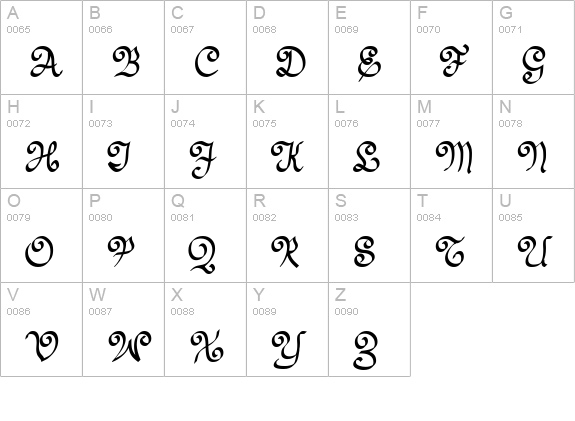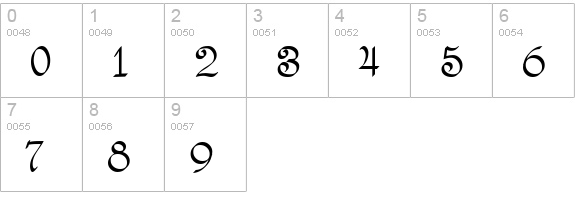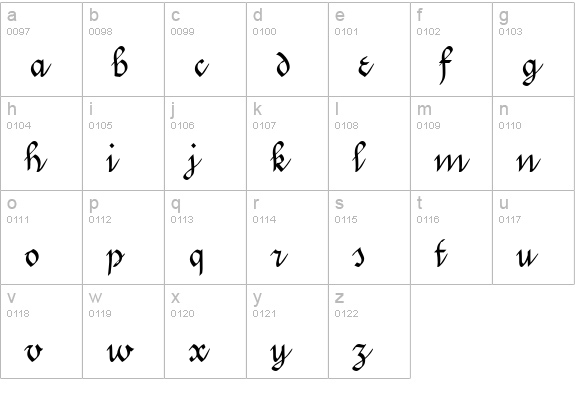
Swirlity Bold Font Details
Swirlity Bold is a strong, high-contrast variant in the Swirlity typeface family \xE2\x80\x94 well suited to headlines, attention-grabbing titles, and strong calls-to-action.
Swirlity Bold font is a captivating and elegant typeface that exudes sophistication and style. Its intricate swirls and bold strokes make it perfect for adding a touch of luxury to your designs. Whether you're creating wedding invitations, branding materials, or social media graphics, Swirlity Bold font will elevate your projects to new heights. The best part? Swirlity Bold font is completely free to download at FontsMarket.com. Take advantage of this opportunity to enhance your designs with this stunning typeface without breaking the bank. Download Swirlity Bold font today and watch as your creations come to life with its beauty and charm.